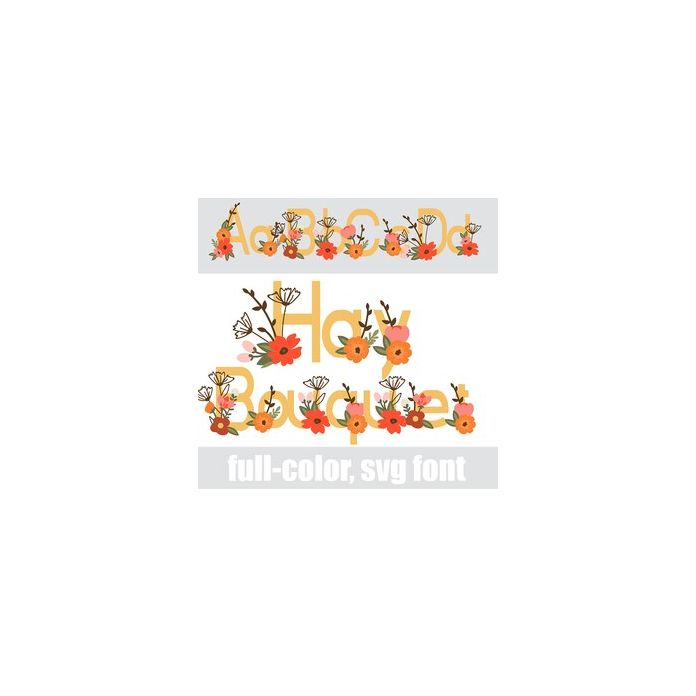
This full-color font features sans serif lettering with pretty fall bouquets. There is an alt case w/ additional colors you can access through your system or Silhouette's glyph map.